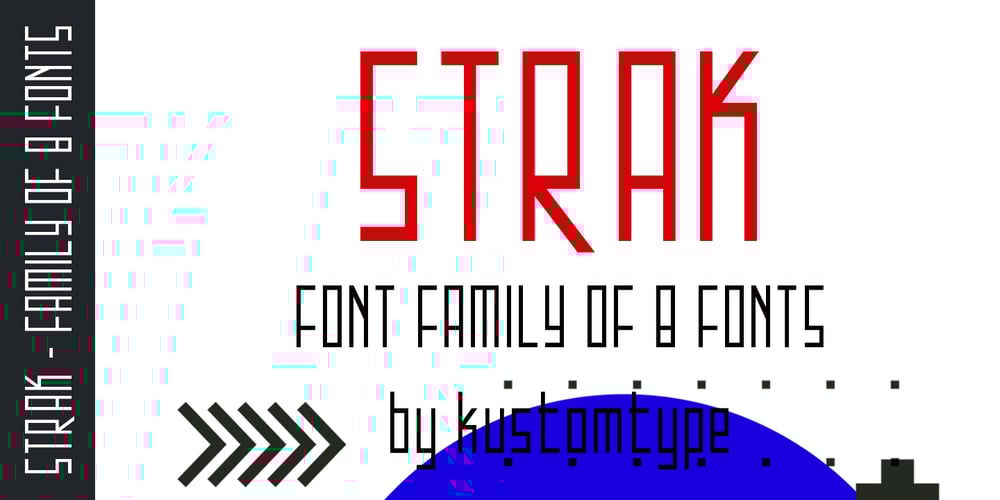
Strak Font Family was designed by Coert De Decker and published by Kustomtype. Strak contains 8 styles and family package options. Strak is a font that was born out of admiration for the work of E. Vermeulen, a Belgian artist known for his tight, precise line and an unseen masterpiece that is spread around the world. He has published and exhibited his work in London, Liverpool, Angoulême, New York, Geneva, Amsterdam, Lyon and Turku (in Finland) and he even signed for the New York Times. Based on a few characters, a complete font was composed by Kustomtype. After a few sketches, Strak came to life. The name Strak, in this case, refers to the slender, beautiful woman with the correct waistlines and proportions. The font is designed this way; it is completely hand-drawn, digitized and can be used in all modern and graphic media. Strak is available in 8 different styles, has class and will make many people’s mouth water when they see it on your designs. Do you want quality and style? Then Strak is the font-perfect solution!